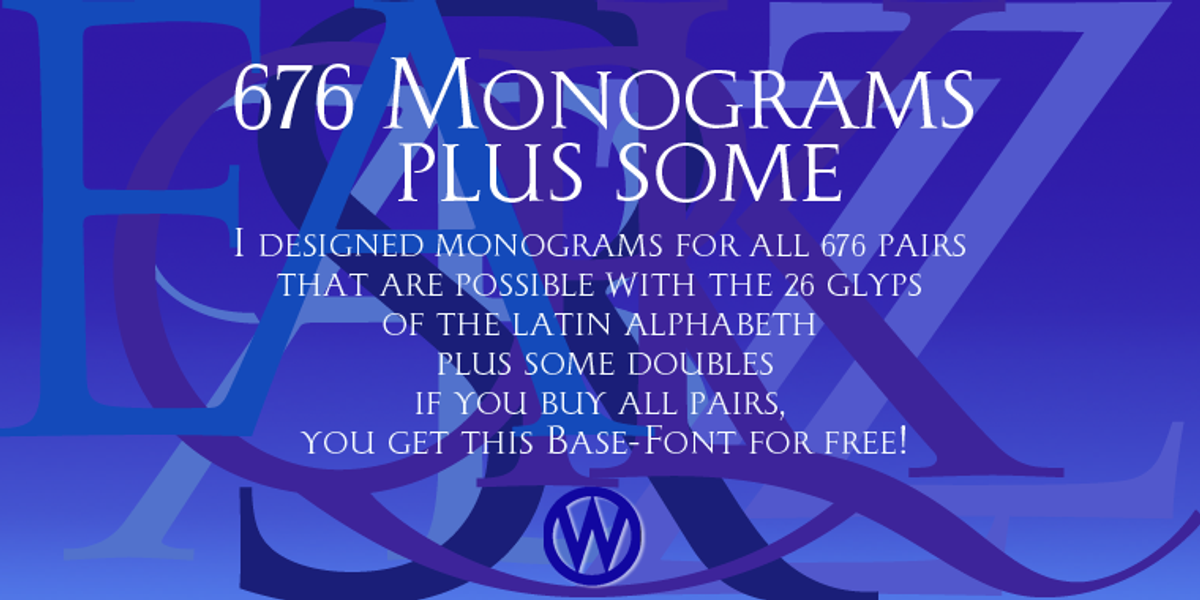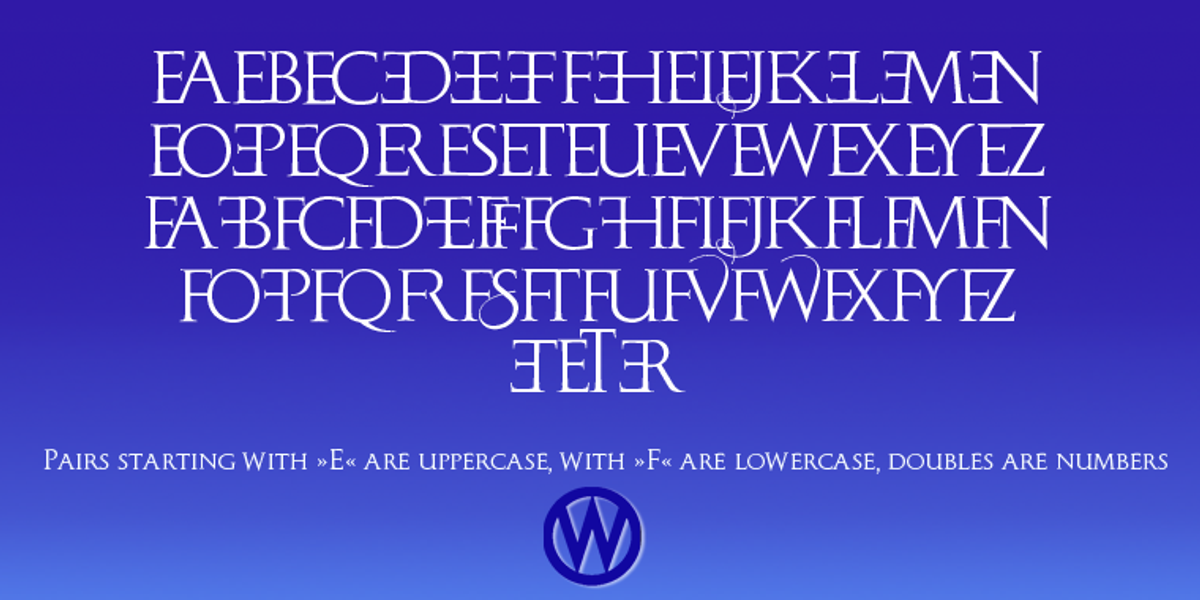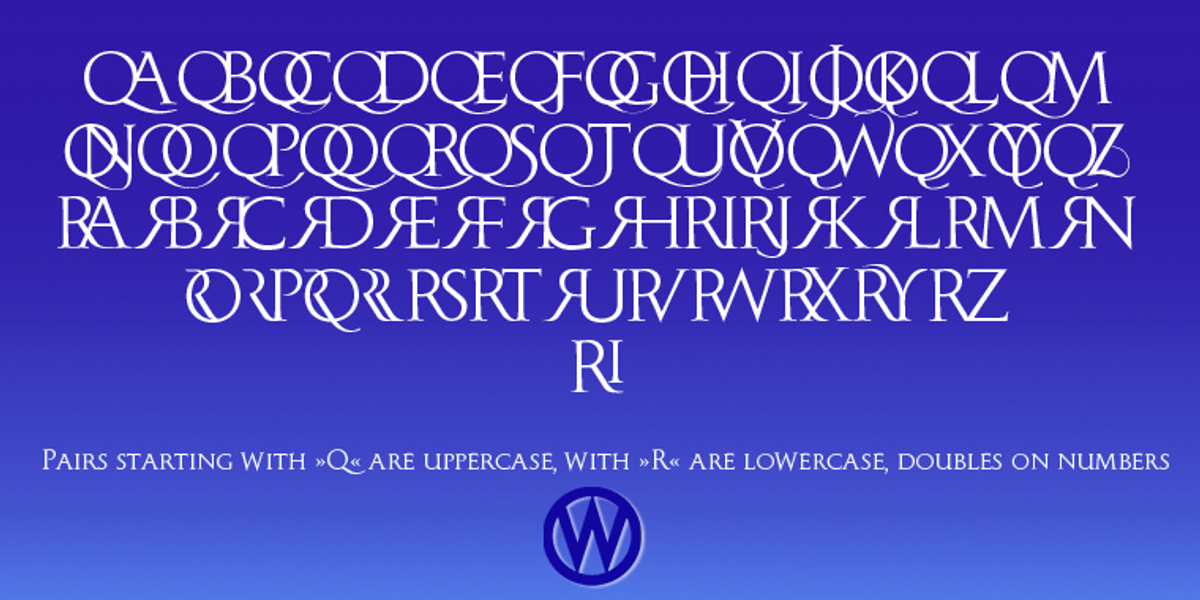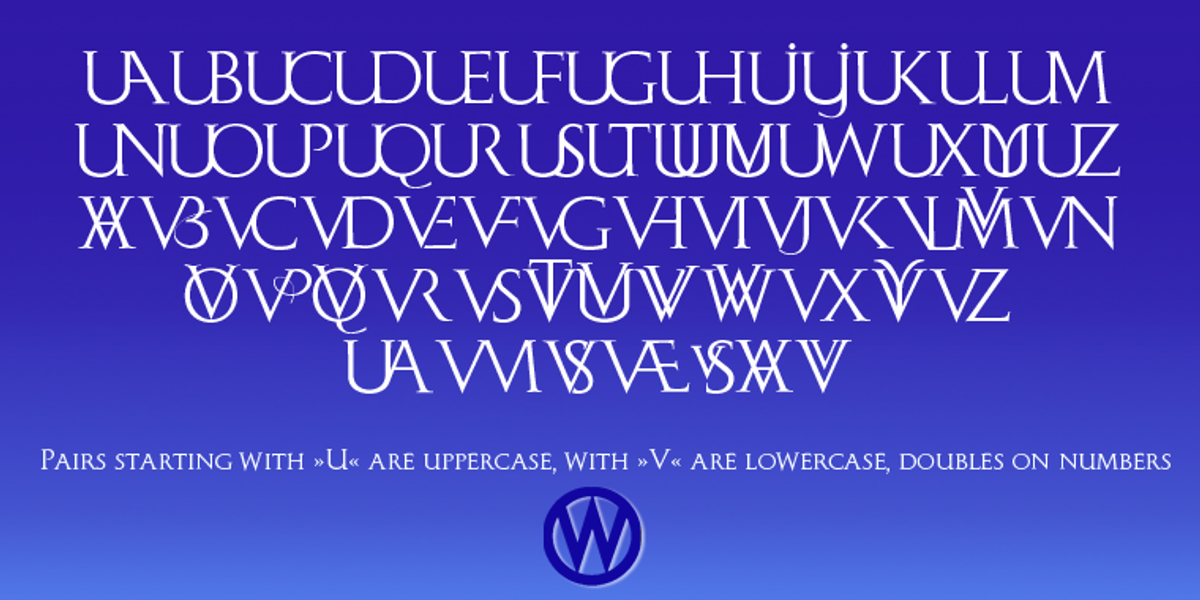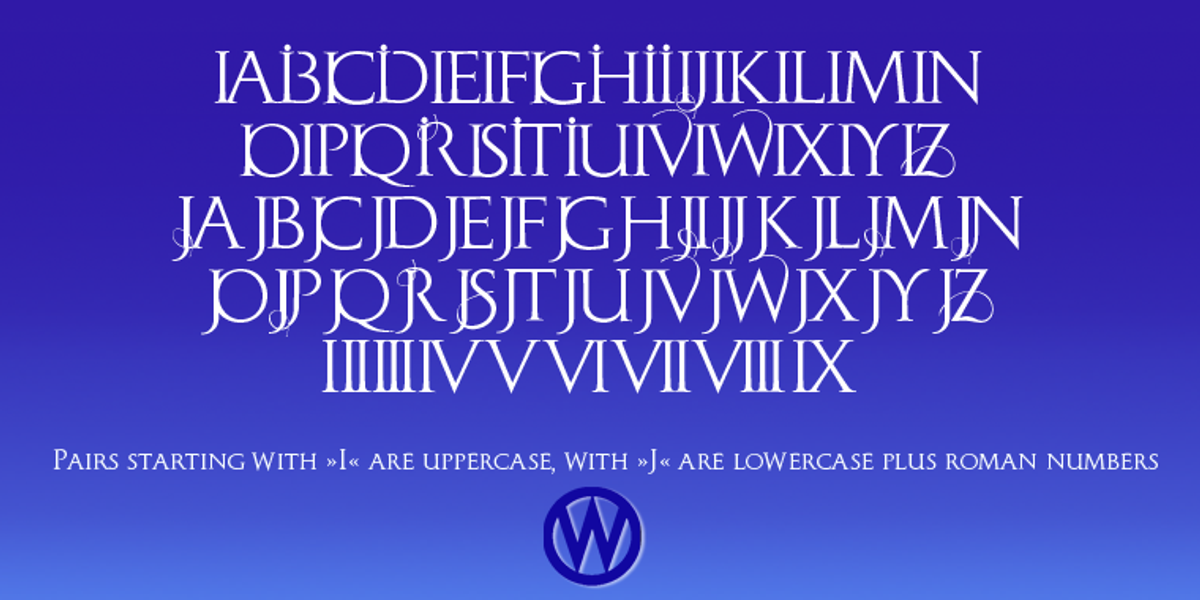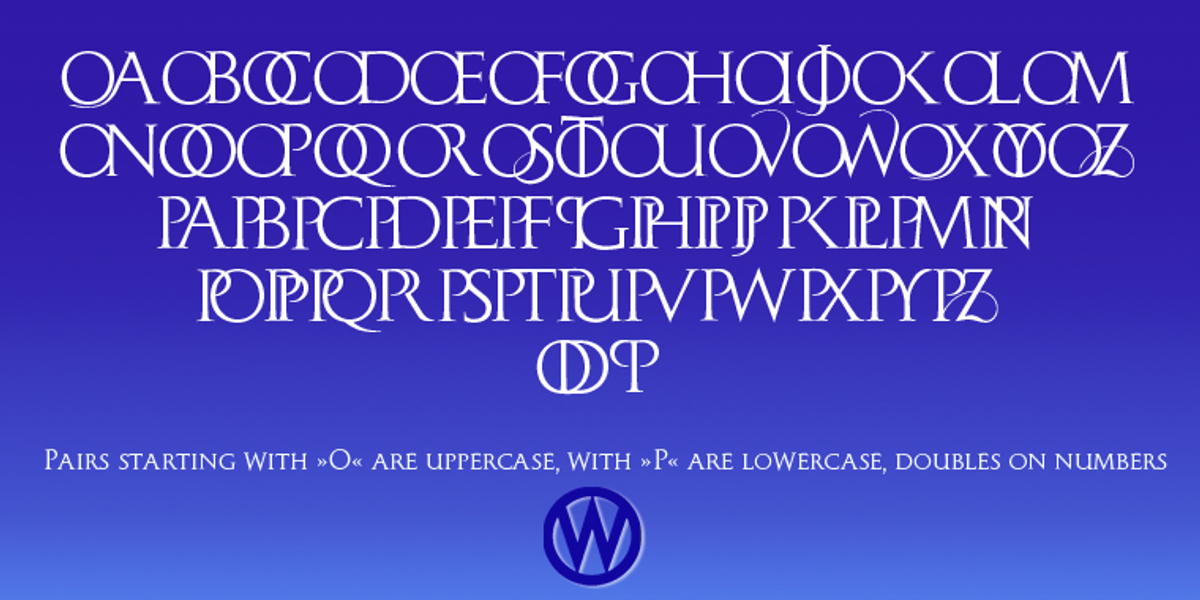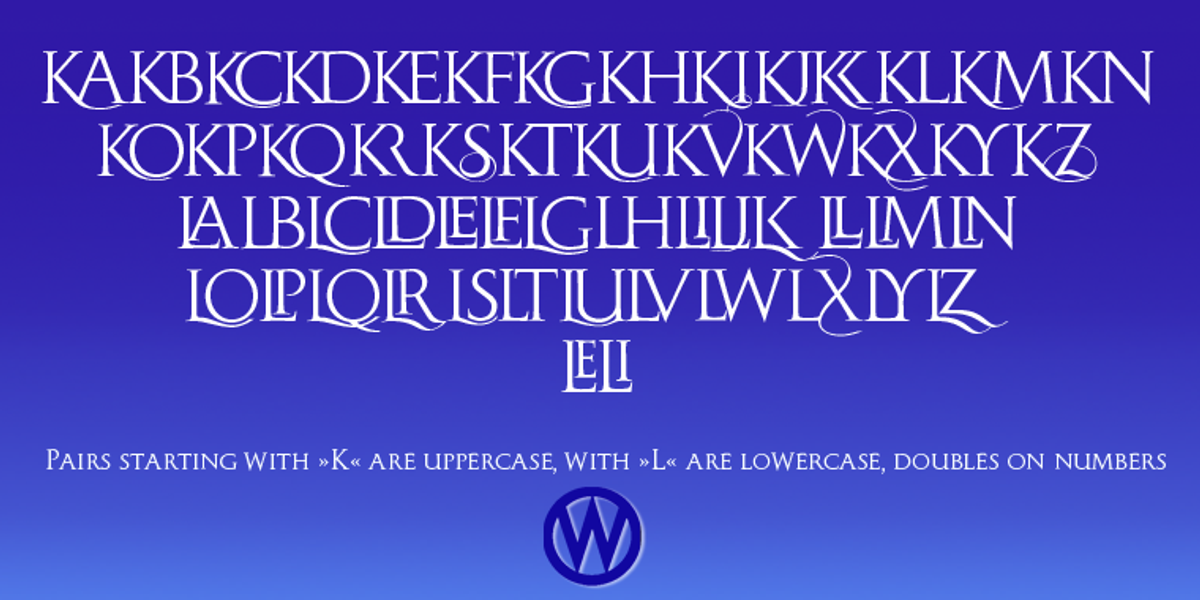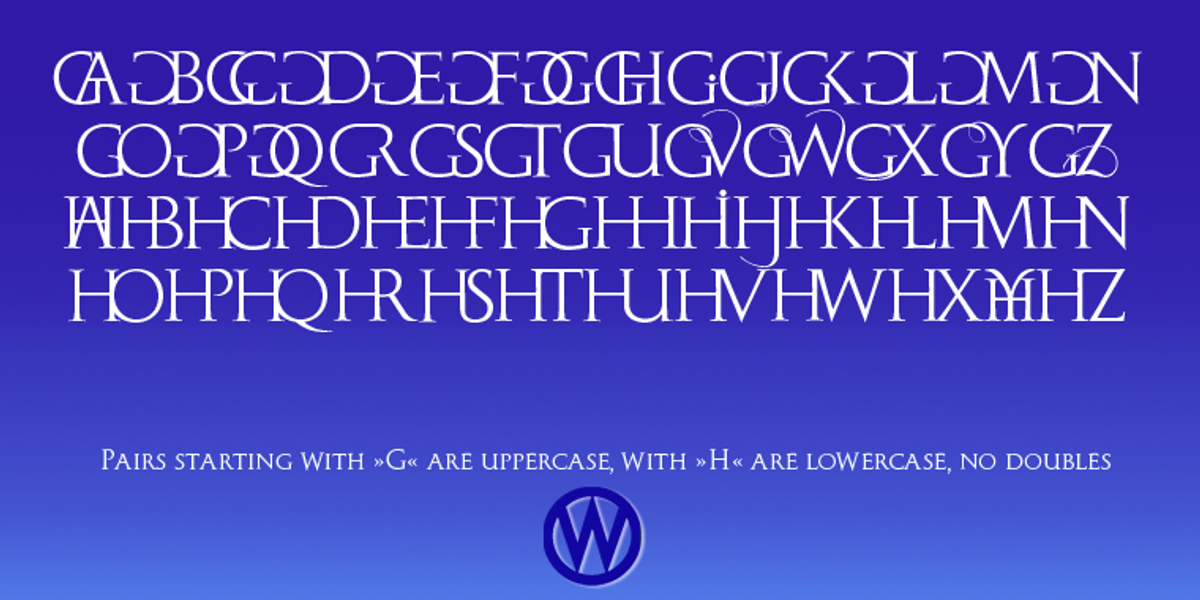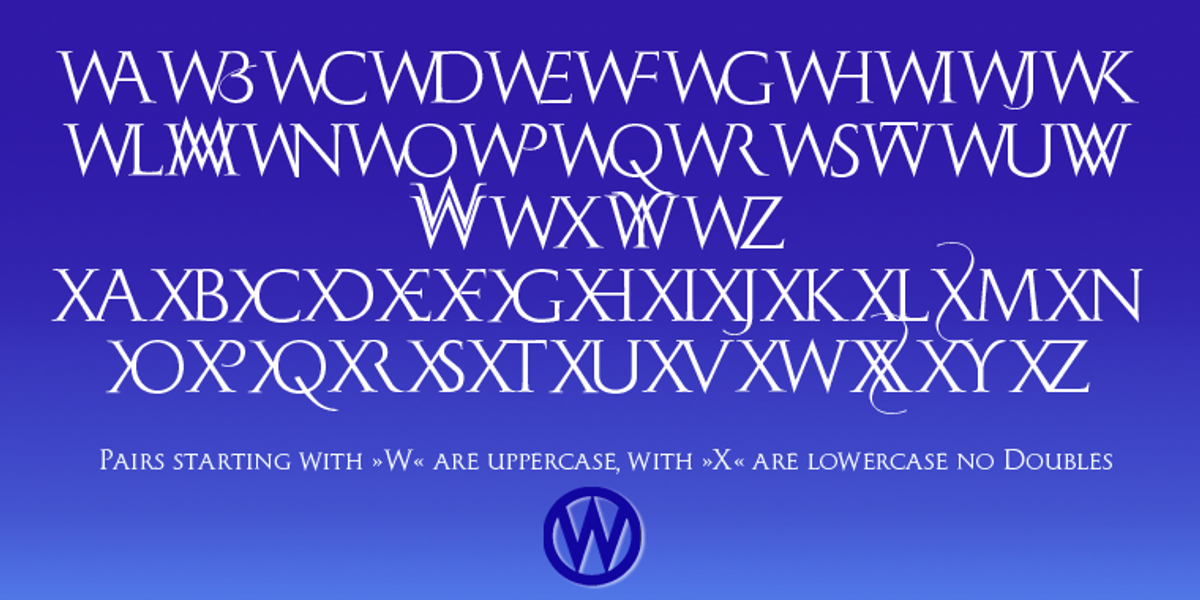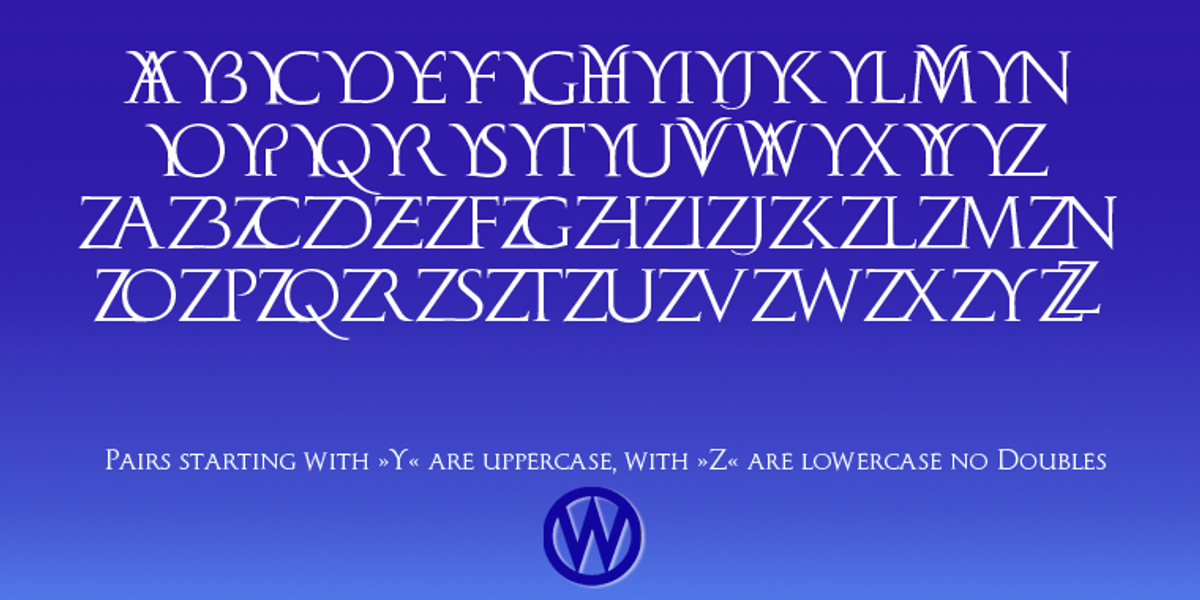
Monogramma
This font set provides a comprehensive collection of 676 unique monograms designed for creating personalized and elegant designs. The monograms are organized into 13 packets based on the initial letters of the combination. The designer, Gert Wiescher, highlights the extensive effort involved in creating this detailed set.